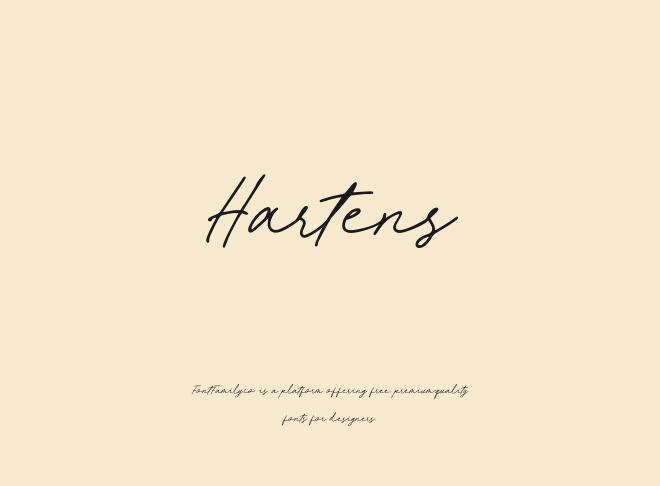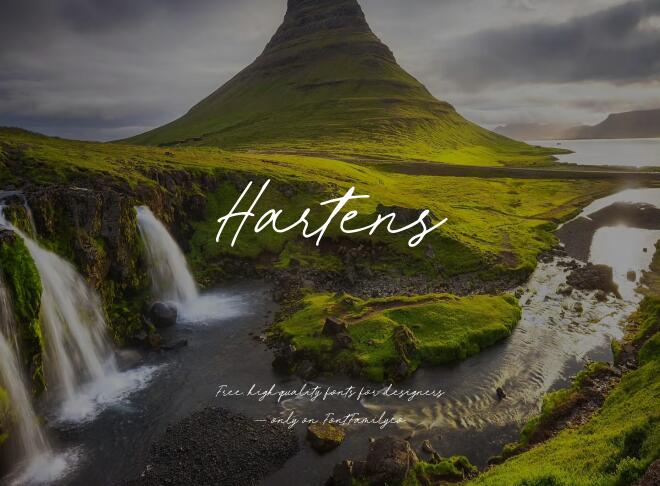
Hartens Font
Hartens Font is a stylishly modern and elegant script font, designed by Hartens Foundry. Released in 2018 under an Open Font License, it beautifully marries the charm of handwritten script with a contemporary edge, making it a perfect choice for a wide array of design projects. Hartens Font stands out for its fluid, organic characters and a sophisticated, refined aesthetic. It is comparable to the likes of popular scripts such as 'Brush Script' and 'Milkshake', but carves its own unique style with a more streamlined, minimalistic approach. This font is an excellent choice for everything from branding and logo design, to invitations, posters, and social media graphics. Its versatility and modern elegance make Hartens Font a must-have in every designer's toolkit.